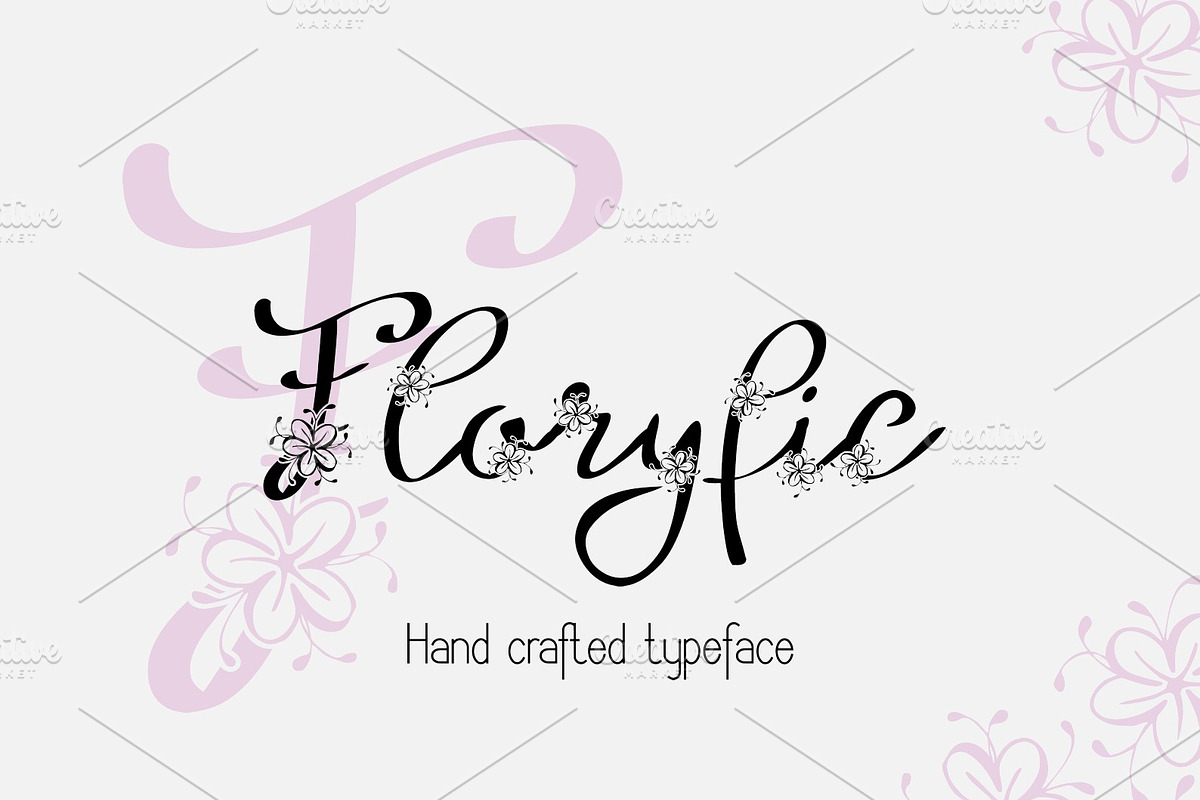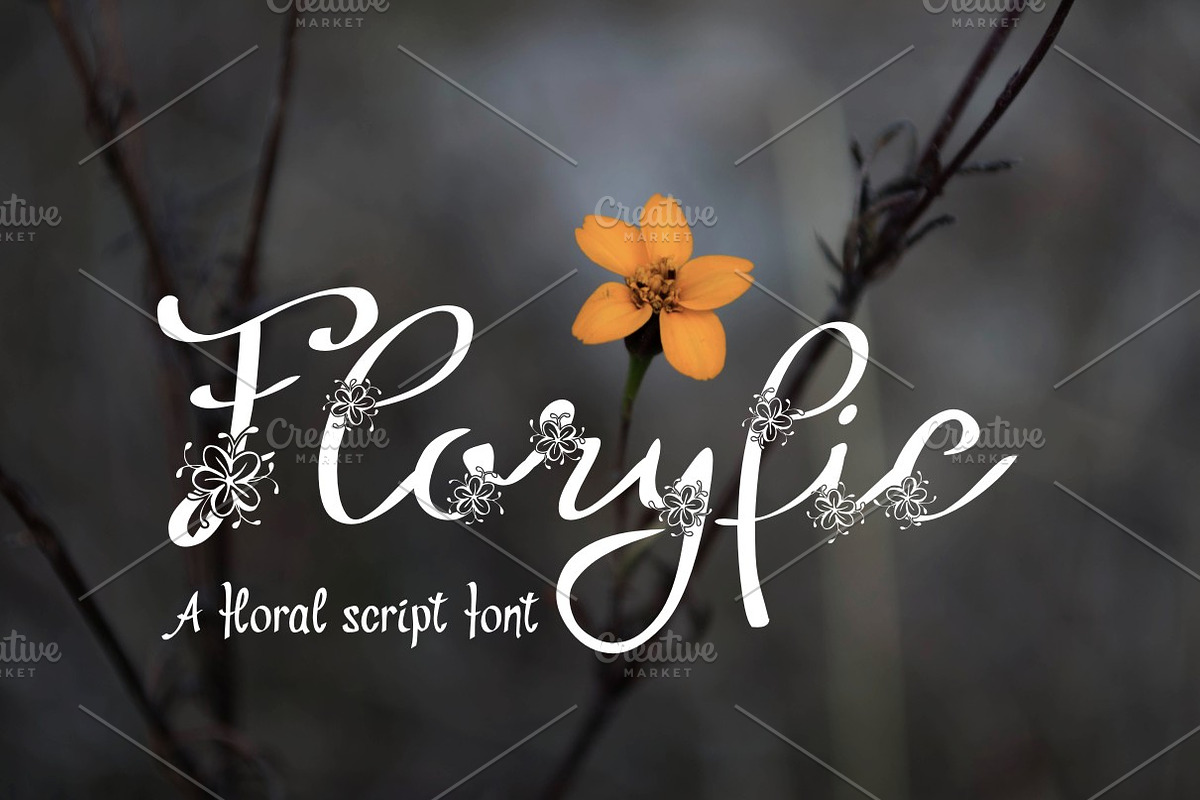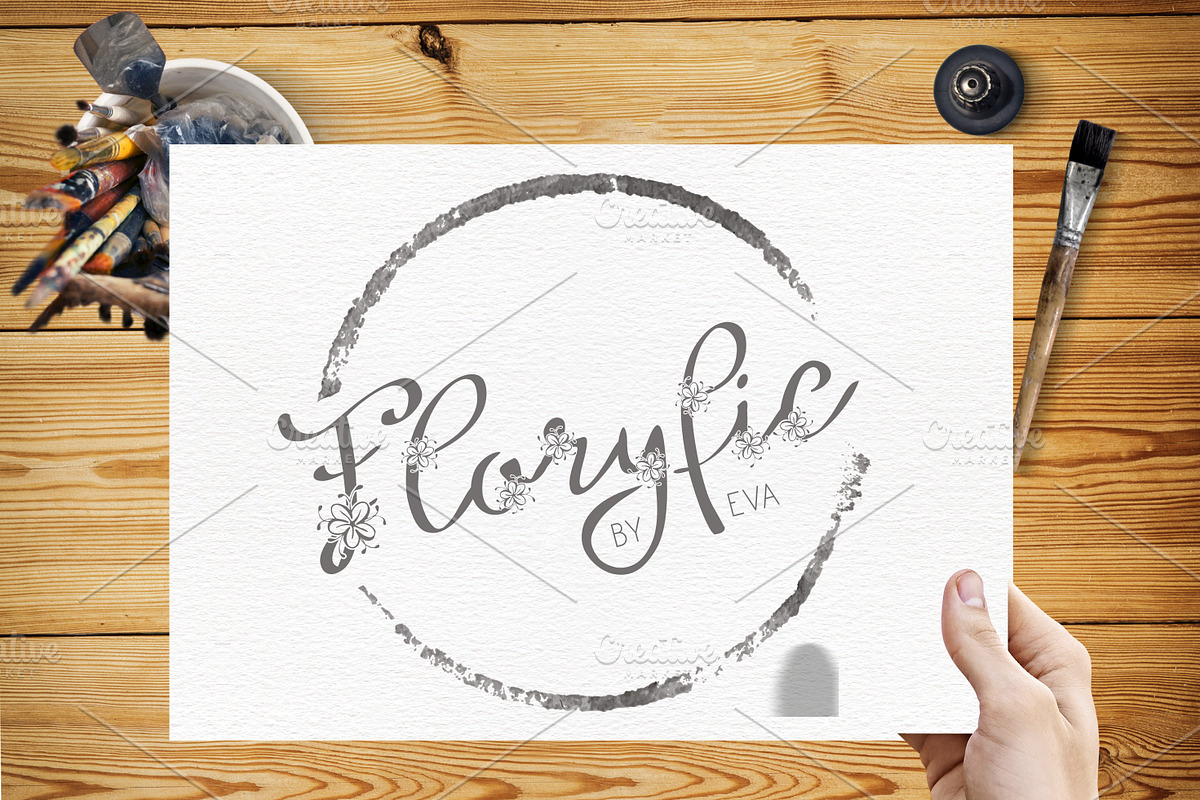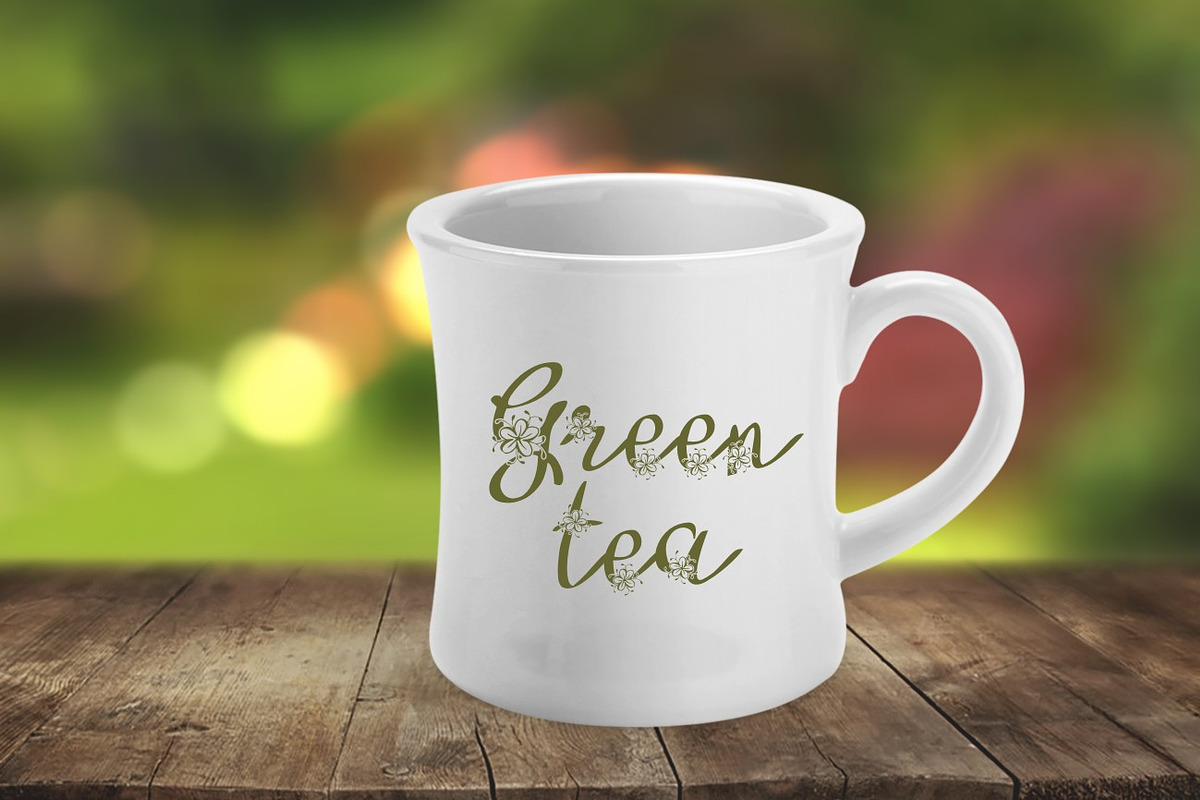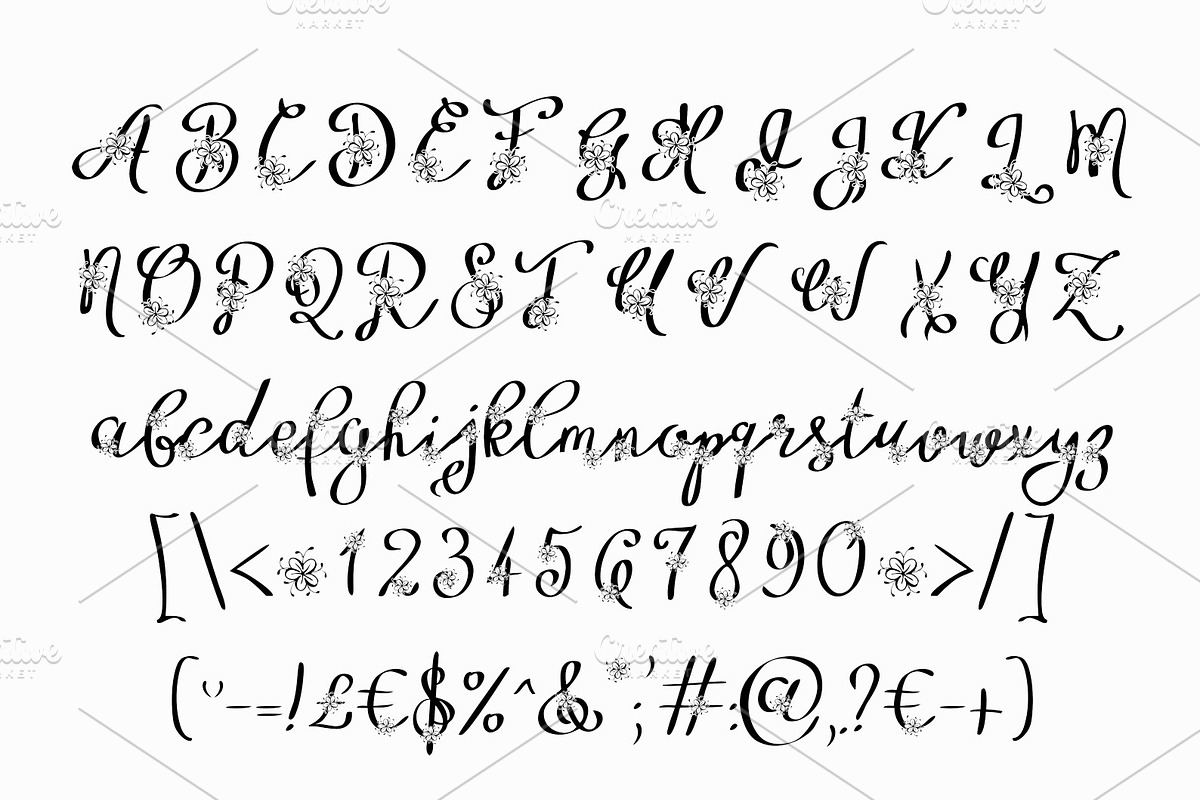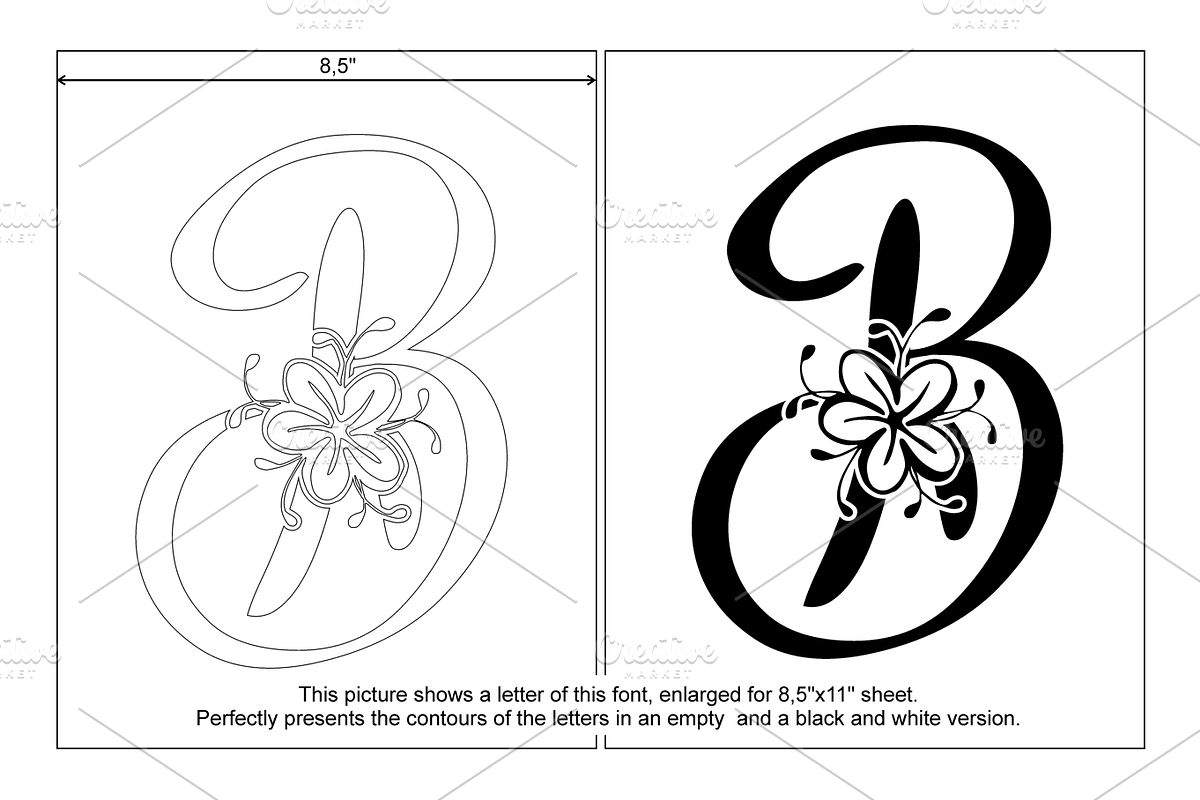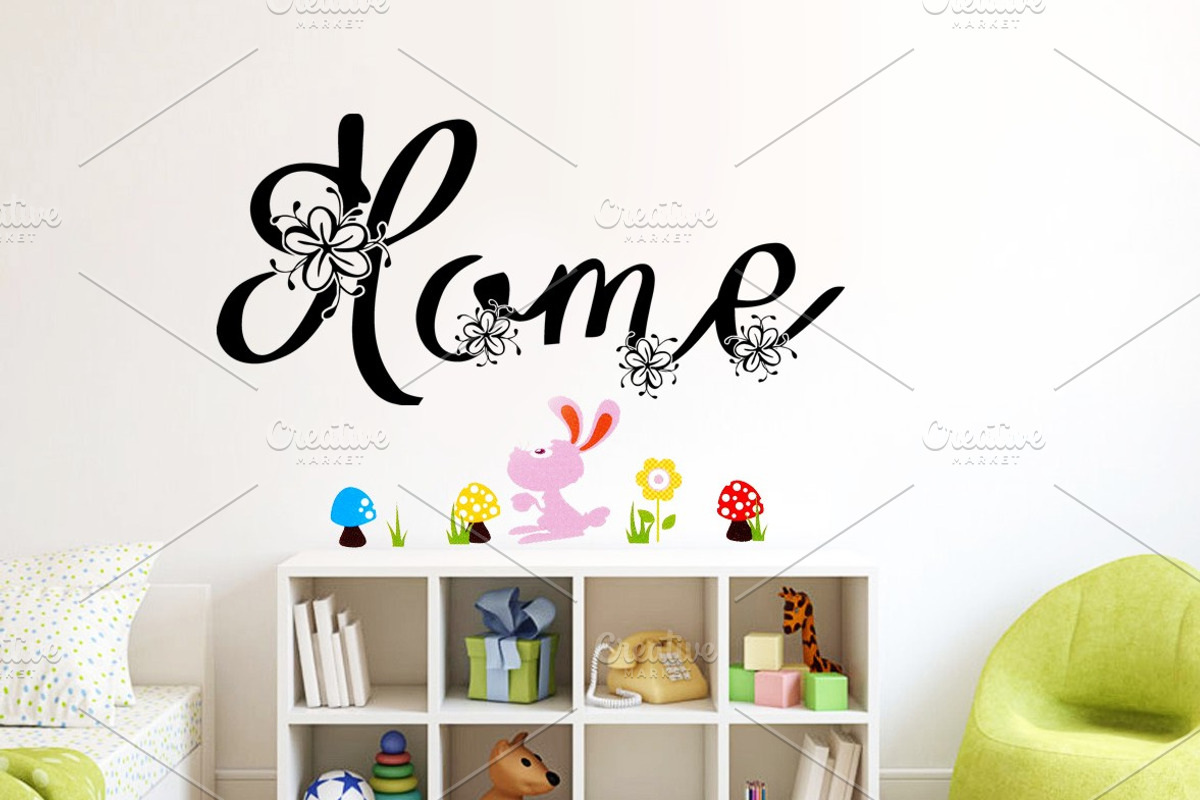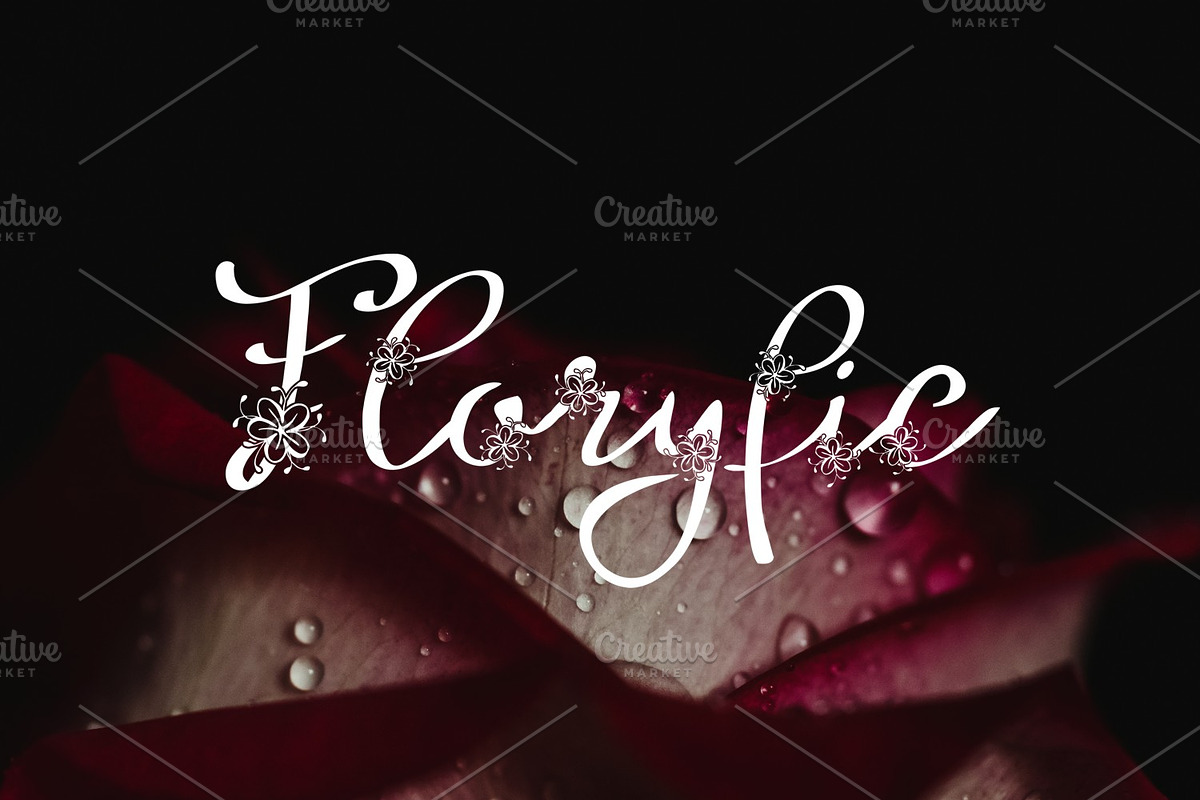
Floryfic Font
Introducing Floryfic fancy script font. Characters decorated with delicate floral elements.
Great for branding, logos, titling, signage, poster, flyers or t-shirts design, headlines and more!
- Characters decorated with delicate floral elements.
- Floryfic Script
Why Floryfic Font is worth a look
Floryfic Font by Digital Typeface Studio fits naturally into Branding, posters, packaging, typography.